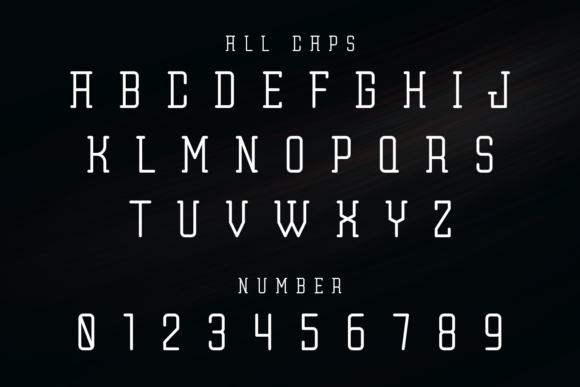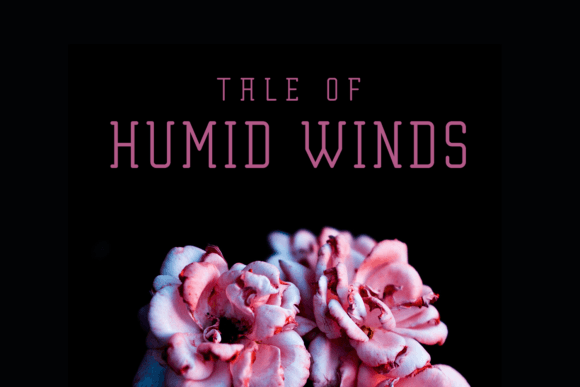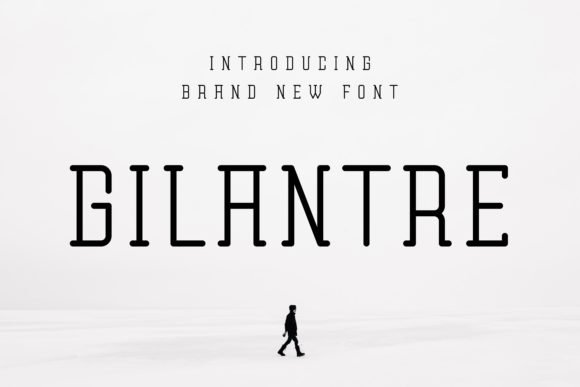
Introduction to Gilantre Font
Gilantre is a cool and unique display font.
This font is neatly crafted and highly detailed Whatever the topic, this font will be a wonderful asset to your font library, as it has the potential to enhance any creation.
Key Features of Gilantre Font
Why Choose Gilantre Font?
Gilantre Font offers exceptional quality and versatility, making it a valuable addition to your design toolkit. Whether you’re creating for personal projects or commercial use, Gilantre Font delivers professional results.